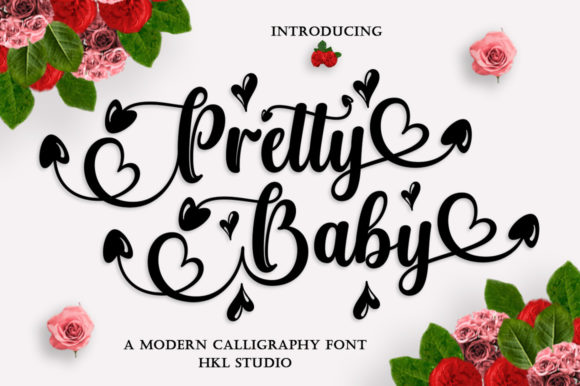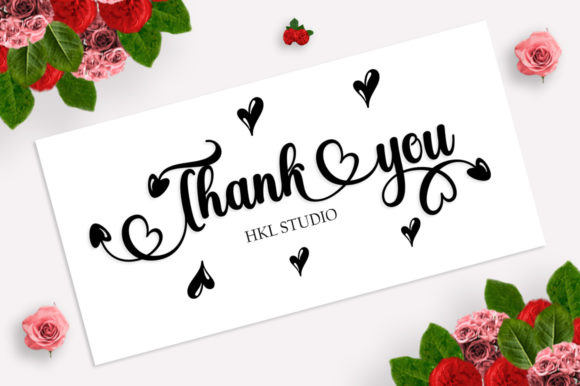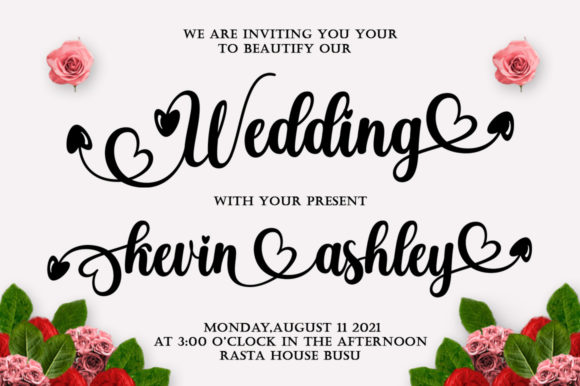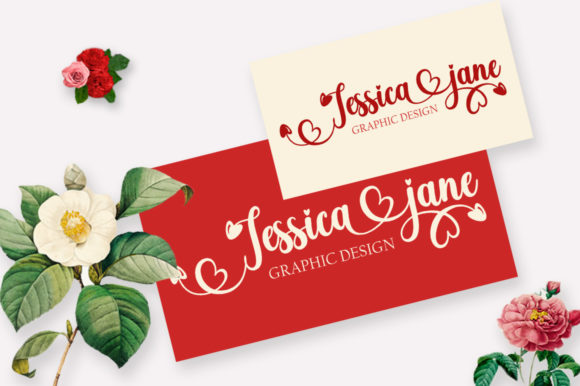
Pretty Baby Font
Pretty Baby is a romantic and sweet calligraphy typeface with characters that dance along the baseline. It will add a luxury spark to any design project that you wish to create! This font is PUA encoded which means you can access all of the amazing glyphs and ligatures with ease!